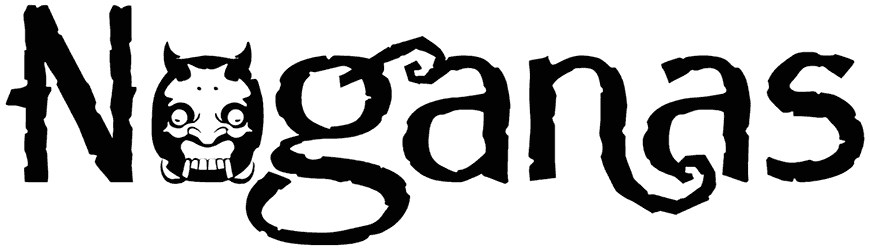
Noganas Font
Noganas font is that cool and goth element that you are missing in your Halloween flyer! This font contains bold and wobbly letters, and the letter “O” is designed like a spooky devil head. It will make your text look informal and edgy. You can use this Halloween font for any gaming logo, comic book, puzzle name, movie title, and informal headlines.